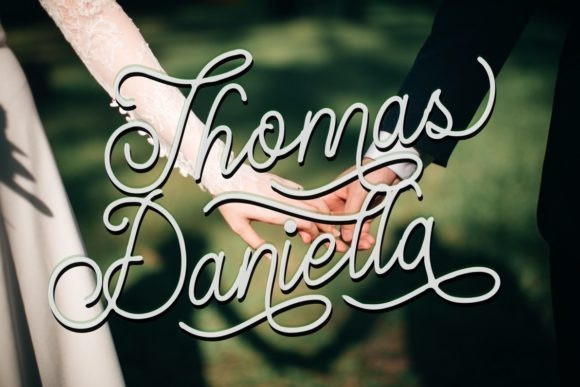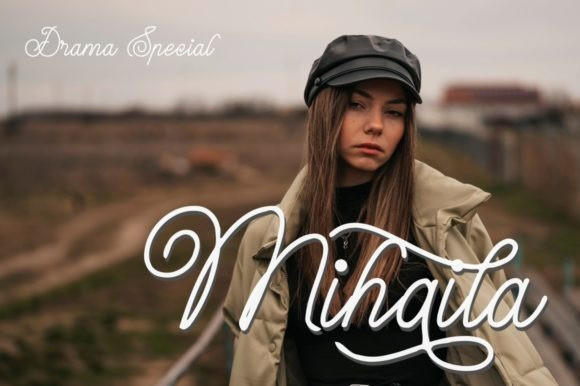
The Weddington Font
The Weddington is a vintage styled and well-balanced script font. It is suitable for any projects such as: logos, branding projects, label, photography, watermark, special events, and all your other lovely projects that need a beautiful script taste. This font is PUA encoded which means you can access all of the glyphs and swashes with ease!